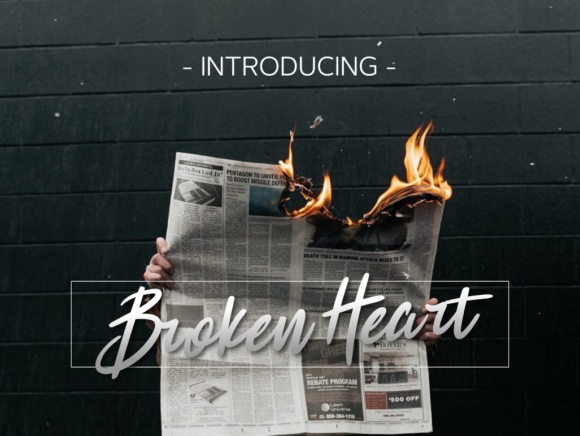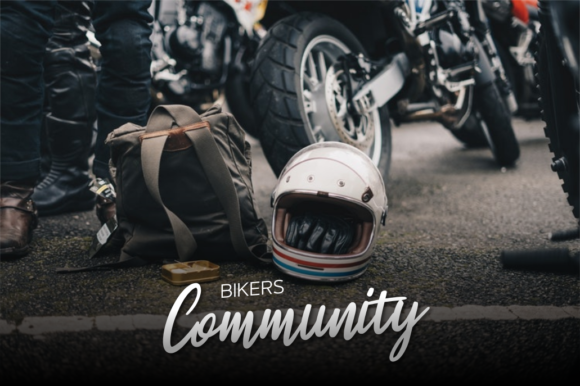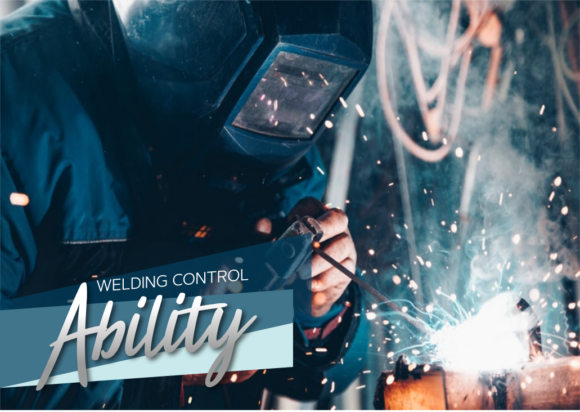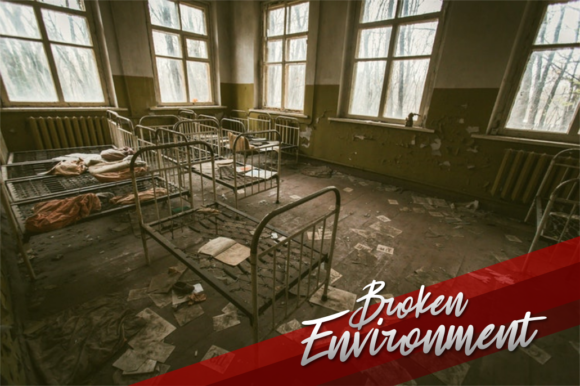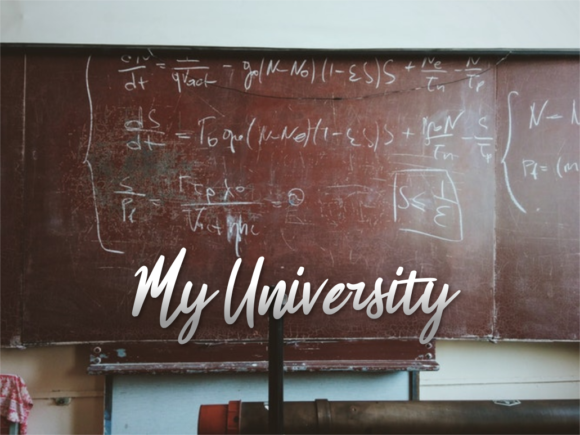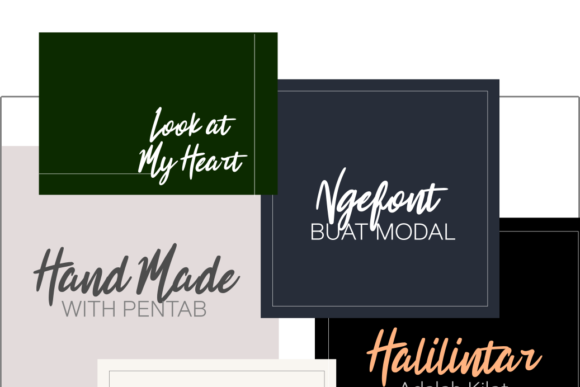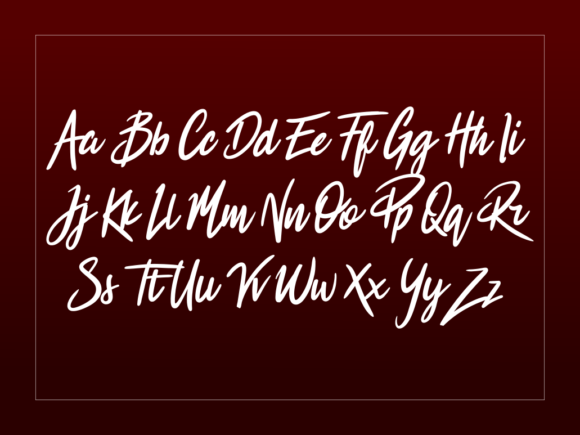
Broken Heart Font
About Broken Heart Font
The Broken Heart is a striking signature script. It has a natural writing style and will add a classy touch to your designs.
It’s perfect for branding, photography, invitations, quotes, watermarks, advertisements, product designs, labels, and much more!